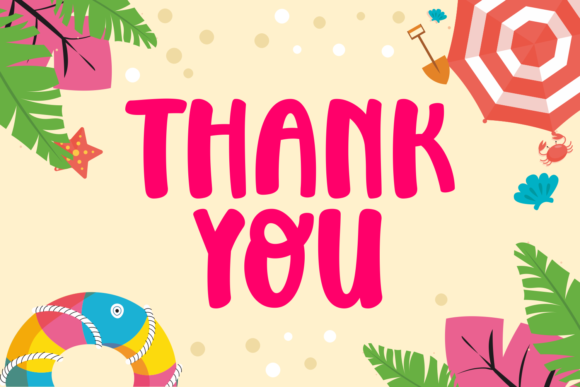
Summer Love Story Font
Summer Love Story is a friendly and sweet handwritten font. Add this cheery and cool font to your library and make your creations look out of this world.